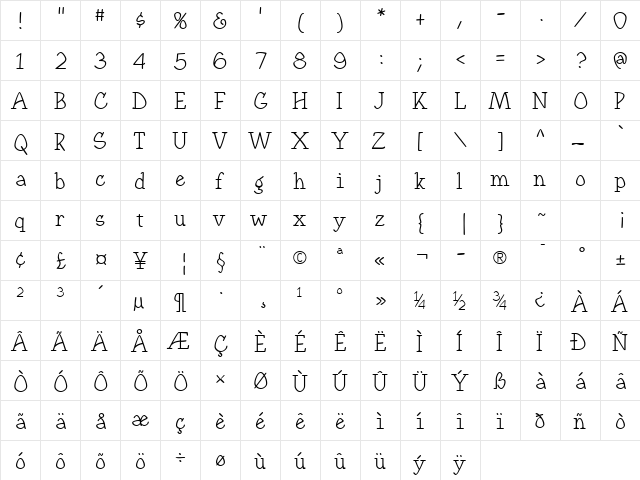
KampFriendship Plain
Design Context for KampFriendship Typeface
KampFriendship offers clean, dependable letterforms without strong stylistic allegiance, making it a practical choice for designers who need flexibility.